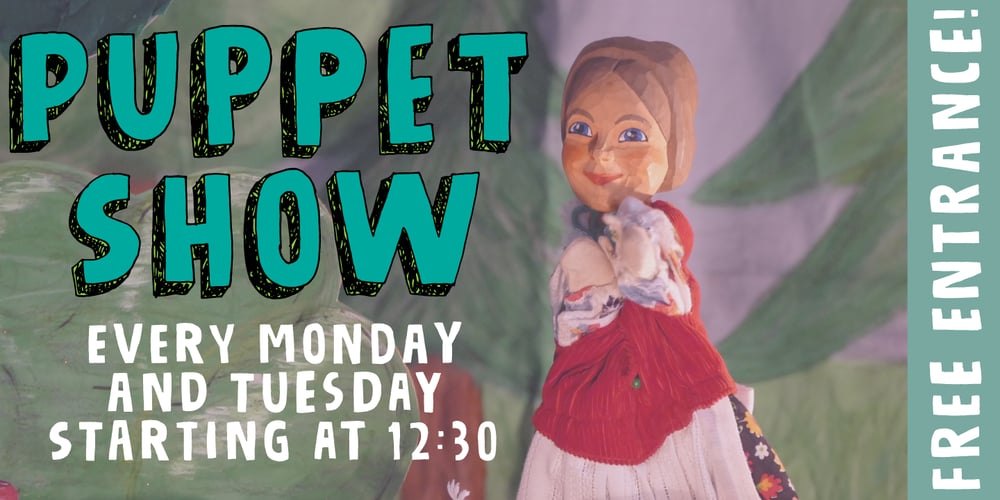
Frokost Font Family was designed by Jakob Fischer and published by PizzaDude.dk. Frokost contains 3 styles and family package options. Frokost is danish for lunch – and this font is your lunch today, so grab your knife and fork and eat! The contextual alternates makes a great variation when using the font. There is 5 different versions of each letter that automatically cycles as you type! Since we all eat lunch, no matter which country we are in, the font has got strong lingual support!